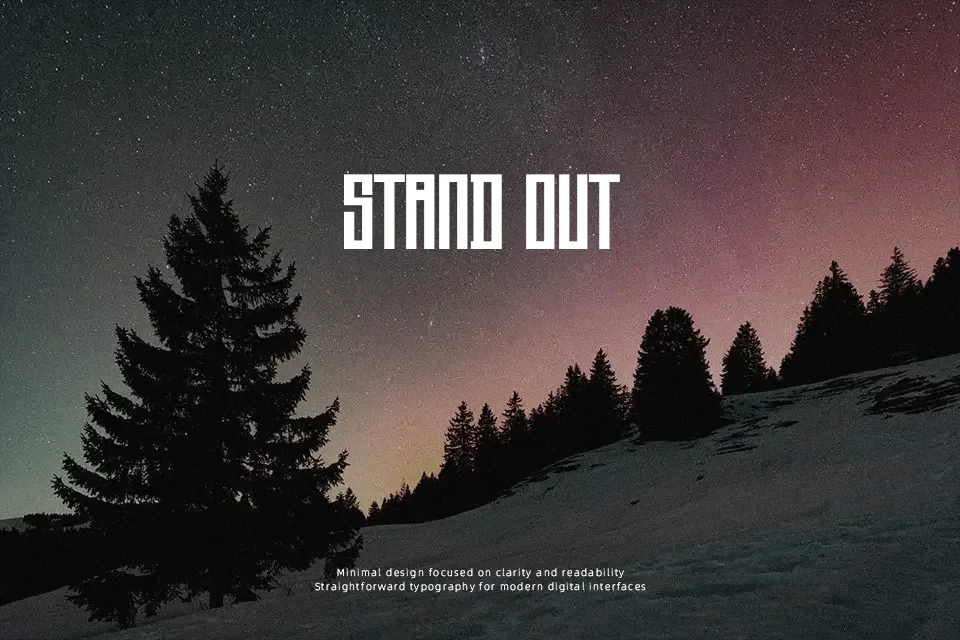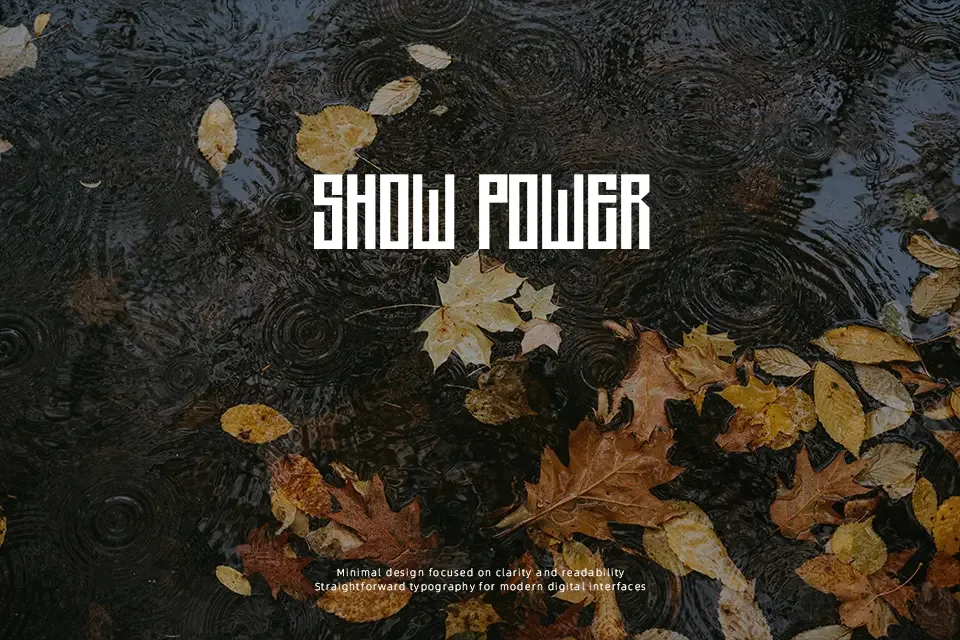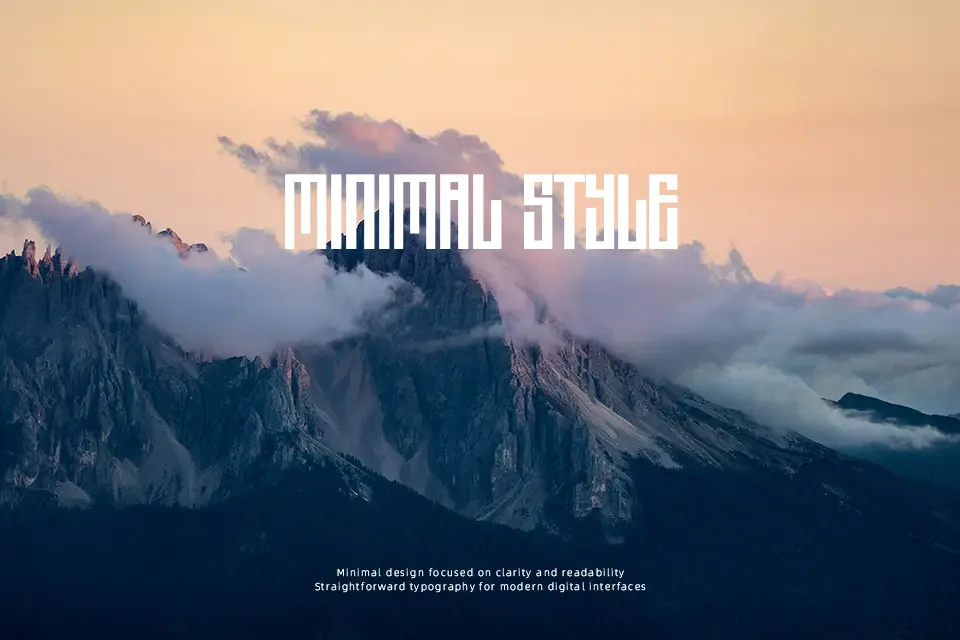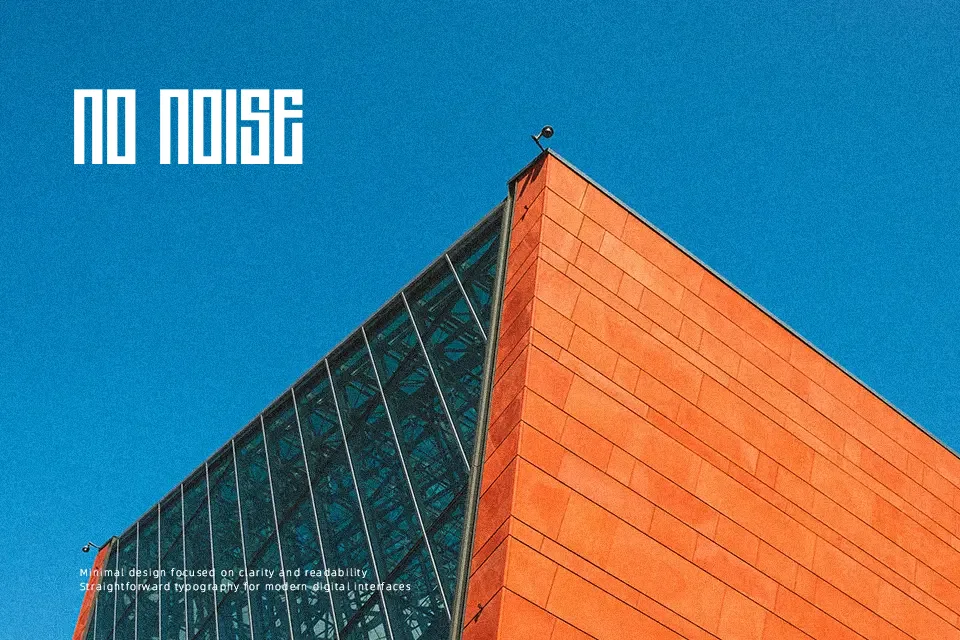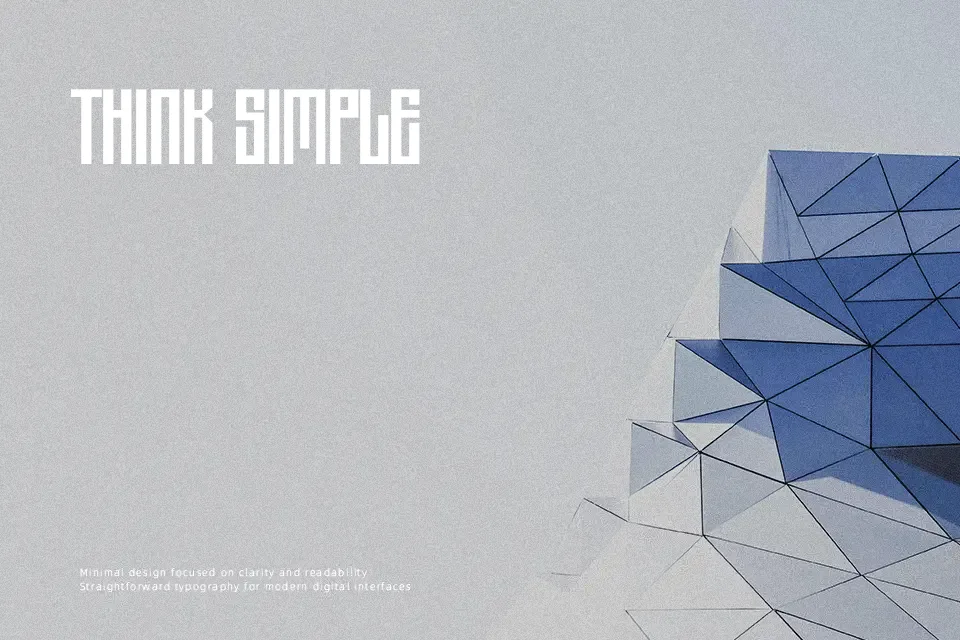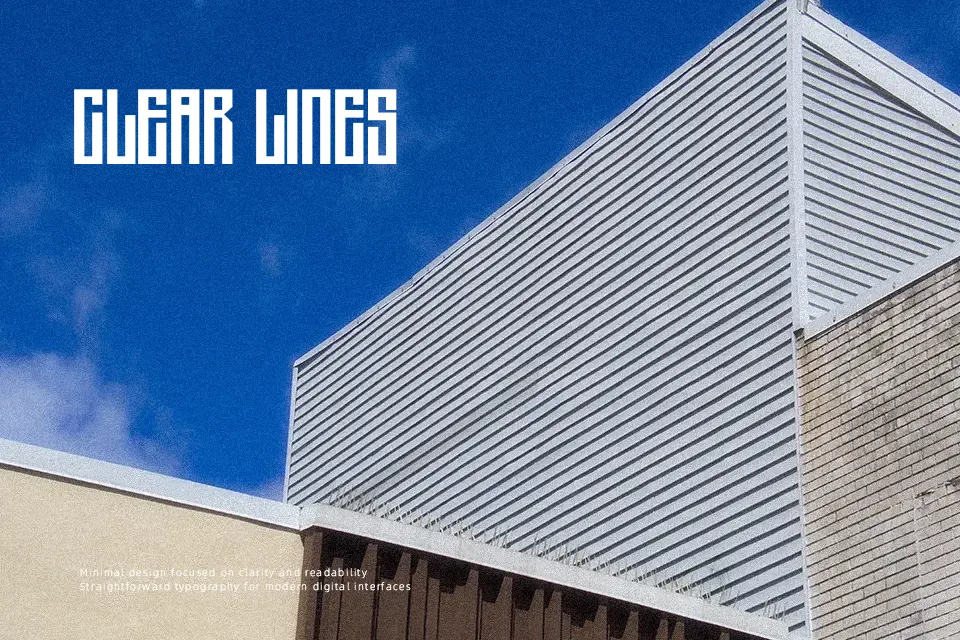
Start Game Font
Start Game Font is built with solid, heavy strokes and compact geometric proportions that immediately establish an assertive arcade aesthetic. The uniform line thickness and squared terminals create a punchy visual rhythm across uppercase headings. Spacing remains relatively tight, allowing display compositions to feel dense and cohesive. In medium to large layouts, the letterforms provide reliable readability for quick glance recognition. However, the heavy weight and constrained counters make the typeface less effective for continuous text or small captions. The structured letter shapes excel on video game title cards, esports stream overlays, and dynamic tournament posters where immediate visual weight is essential.
Best For: video game title cards,esports stream overlays,arcade tournament posters,gaming merchandise packaging
Not Ideal For: continuous reading paragraphs,mobile ui body text,dense spreadsheet tables,small print captions
Perfect for branding, gaming, and headline, with a bold and condensed style.